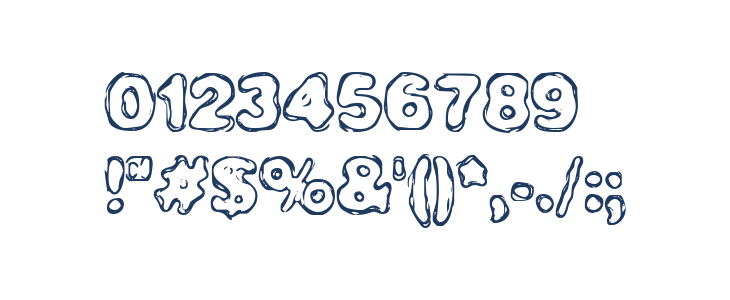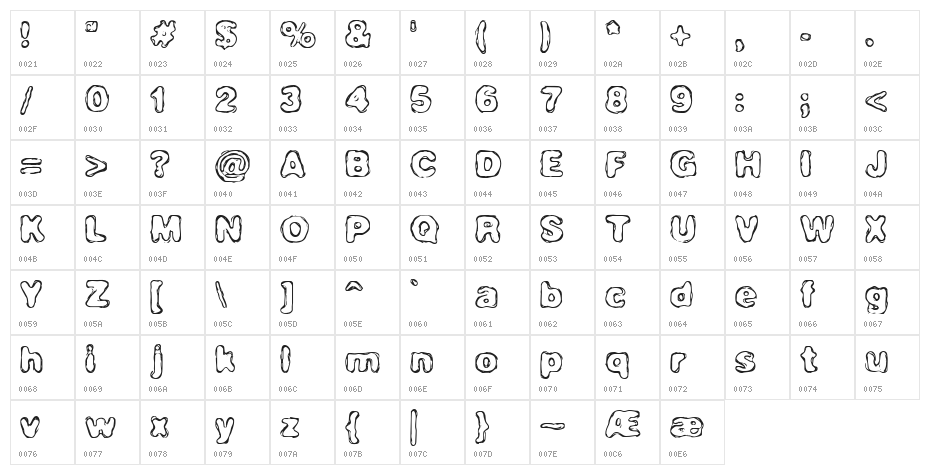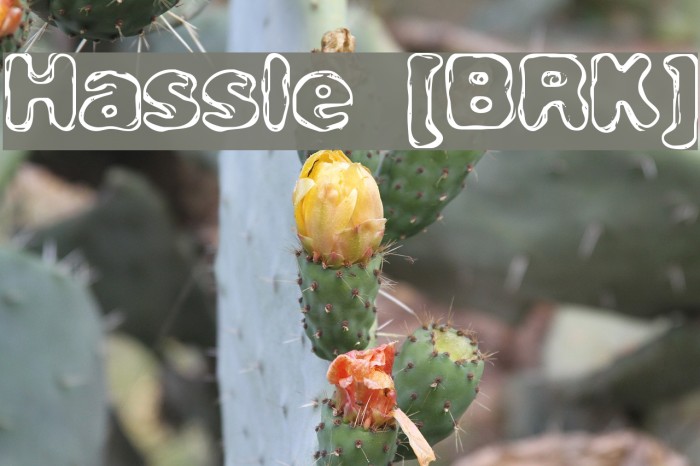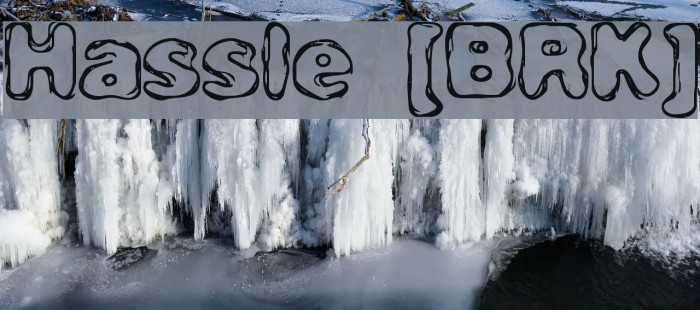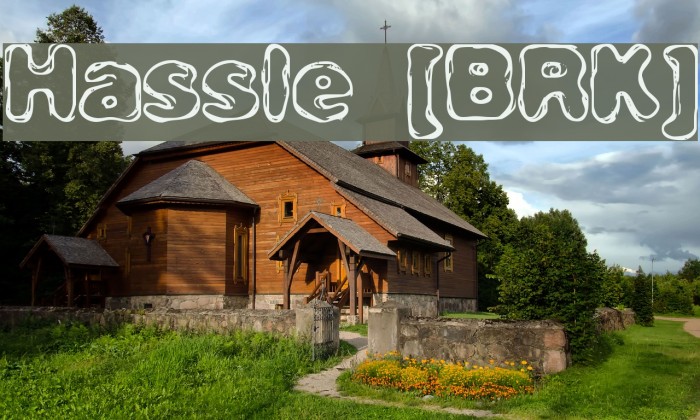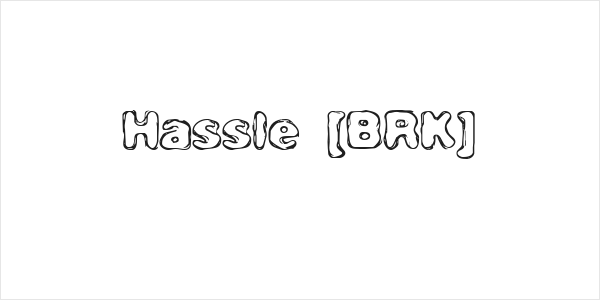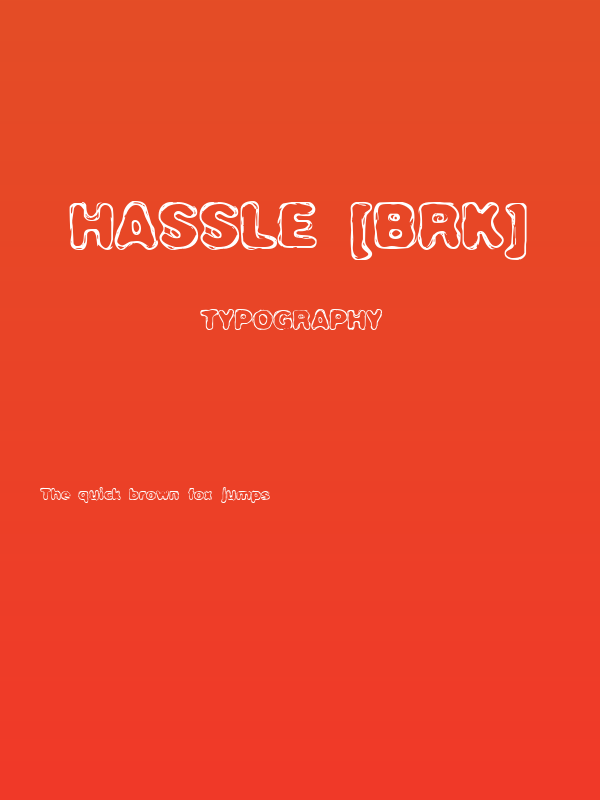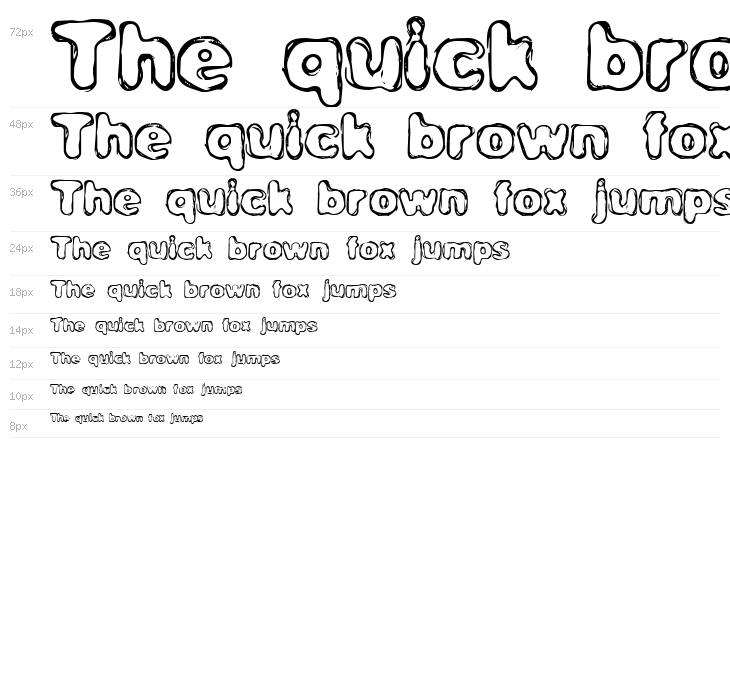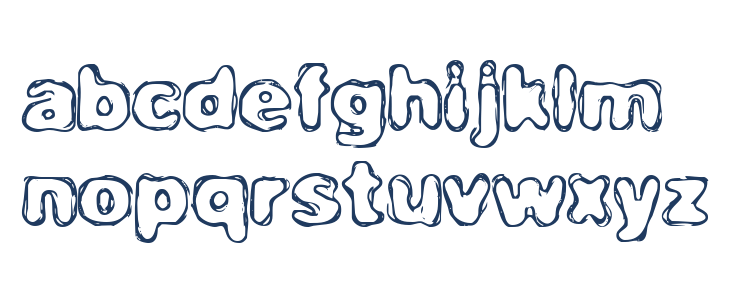
Hassle [BRK] Font
Hassle [BRK] Description
This playful and bold font features a unique, hand-drawn style with a bubbly, cartoonish appearance. The characters are outlined with a thick, uneven stroke, giving them a dynamic and lively feel. The irregular contours and whimsical design make it stand out, perfect for capturing attention. Each letter and number is distinct, with a slightly distorted shape that adds to its charm. The font includes a full set of uppercase and lowercase letters, numbers, and a variety of special characters, all maintaining the same quirky aesthetic.
| Proposed Projects | Ideal for children's books, comic strips, playful branding, and creative posters. |